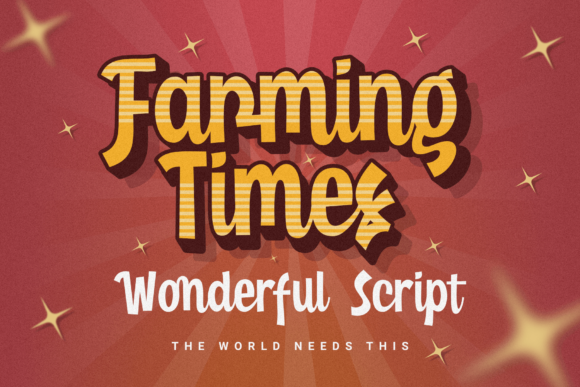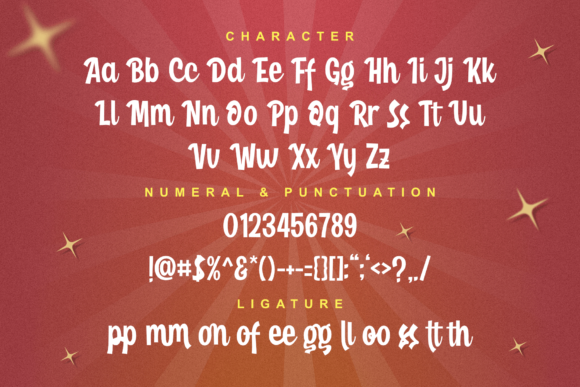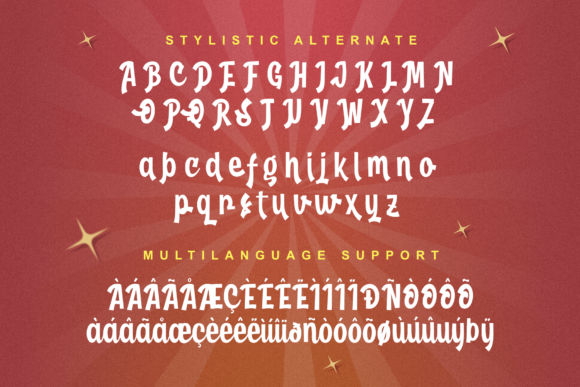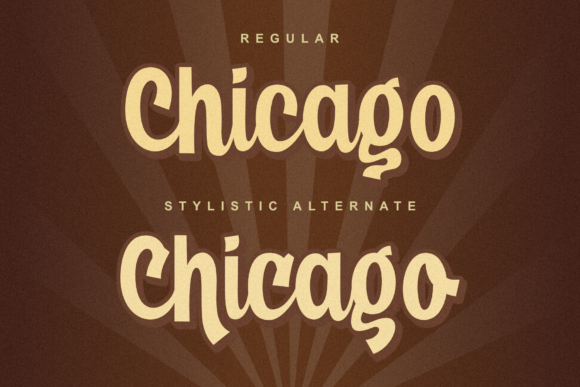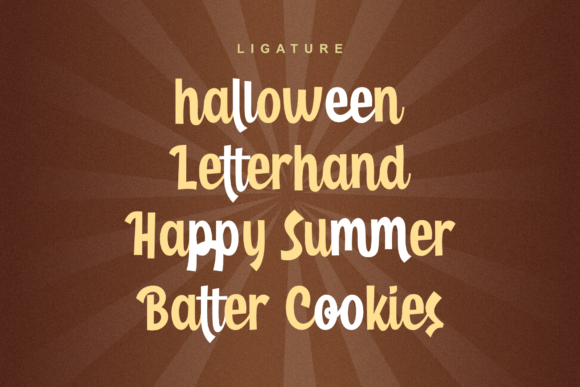
Farming Times Font
About Farming Times Font
Farming Times is an exquisite and unique handwritten font. Trendy and stylish, this font will elevate each of your creations. Farming Times is PUA encoded which means you can access all of the glyphs and swashes with ease!